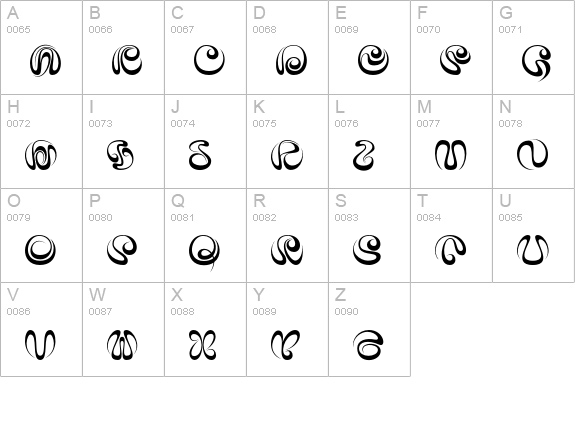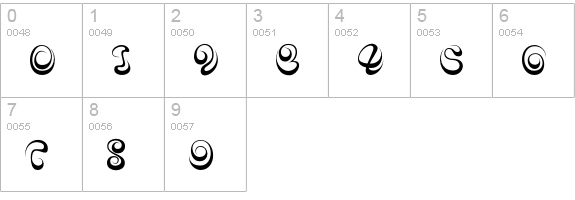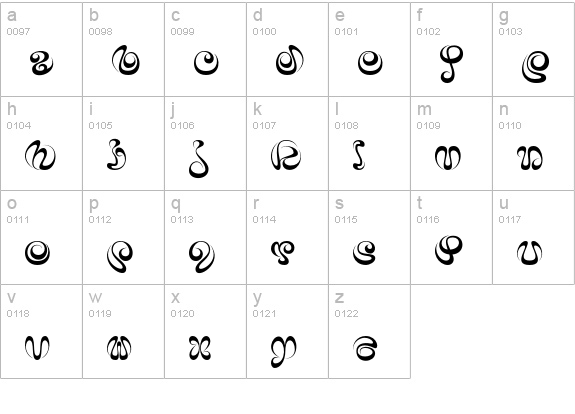
IAi-Alphabet Font Details
Introducing IAi-Alphabet, a stunning and versatile font that will captivate and elevate your designs to new heights. With its elegant and modern aesthetic, IAi-Alphabet effortlessly combines sophistication with a touch of playfulness, making it the perfect choice for a wide range of creative projects. This font boasts a carefully crafted collection of characters, each exuding a unique charm and personality. From its beautifully designed uppercase letters to its meticulously detailed lowercase glyphs, IAi-Alphabet offers a harmonious balance between simplicity and intricacy. But what truly sets IAi-Alphabet apart is its versatility. Whether you're designing a logo, creating eye-catching headlines, or crafting a memorable brand identity, this font adapts effortlessly to any project, delivering a professional and polished result every time. And the best part? IAi-Alphabet is available to download for free at FontsMarket.com. That's right, you can now access this exceptional font without any cost, allowing you to unleash your creativity without breaking the bank. So why wait? Don't miss out on the opportunity to enhance your designs with the captivating beauty of IAi-Alphabet. Download it now for free at FontsMarket.com and let your imagination soar to new levels of excellence.